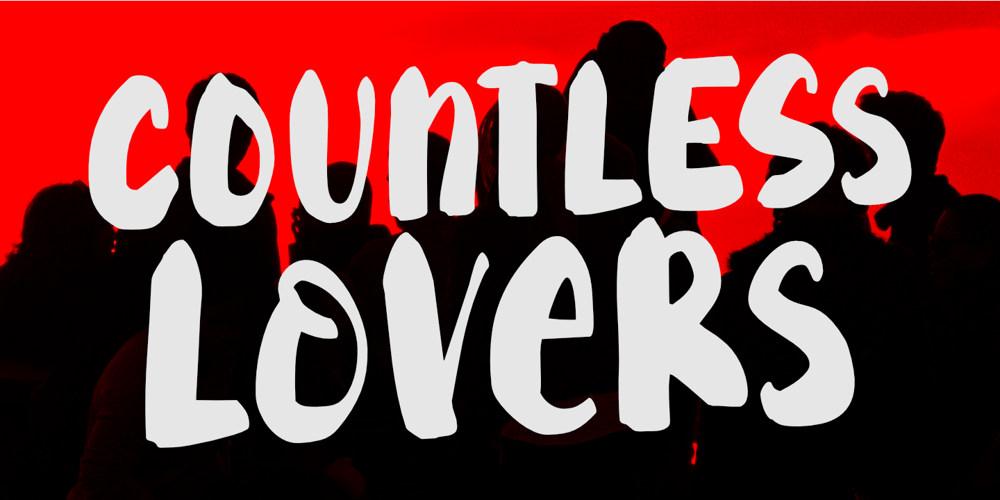
Countless Lovers Font Family was designed by Nurul Hidayani and published by Olivetype. Countless Lovers contains 1 styles and family package options. Countless Lovers is a display font that will help your headlines stand out. It’s a modern, bold, eye-catching, and easy to read, making your message more impactful.So what’s included : Standard Latin Numbers, symbols, and punctuations Ligatures and Swashes Multilingual Support. Accented Characters : ÀÁÂÃÄÅÆÇÈÉÊËÌÍÎÏÑÒÓÔÕÖØŒŠÙÚÛÜŸÝŽàáâãäåæçèéêëìíîïñòóôõöøœšùúûüýÿžß PUA Encoded and fully accessible without additional design software Simple Installations Works on PC & Mac Thank You!